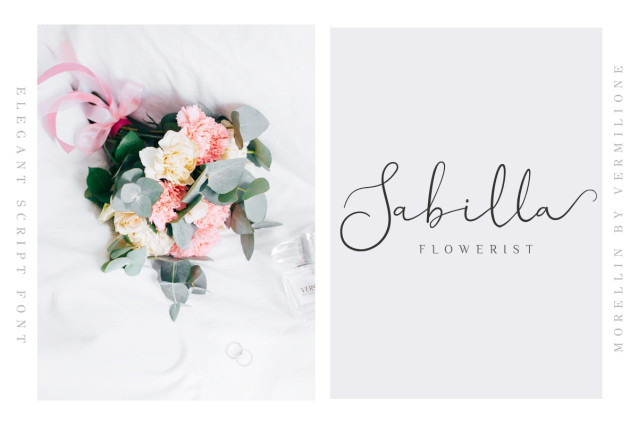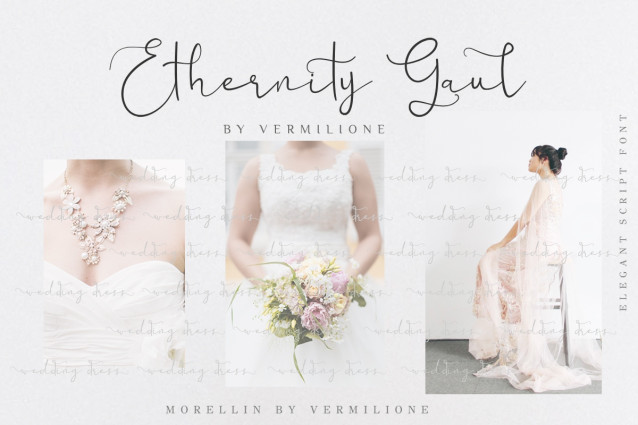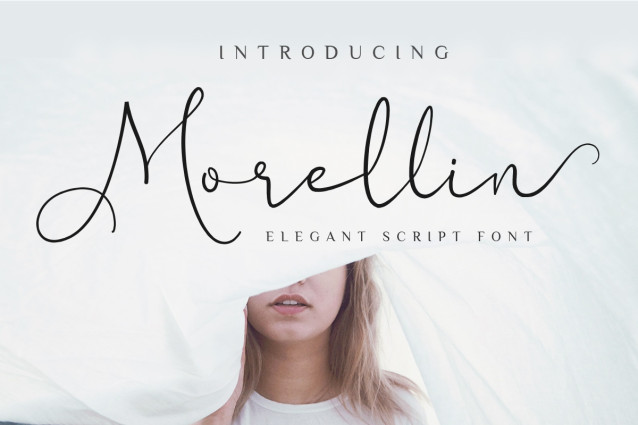
Morellin — Elegant Wedding Script Font
Morellin is an elegant wedding script font featuring delicate strokes, graceful curves, and a refined handwritten character. Its flowing letterforms create a soft, romantic, and sophisticated aesthetic, making it an ideal choice for designs that require an intimate and luxurious touch.